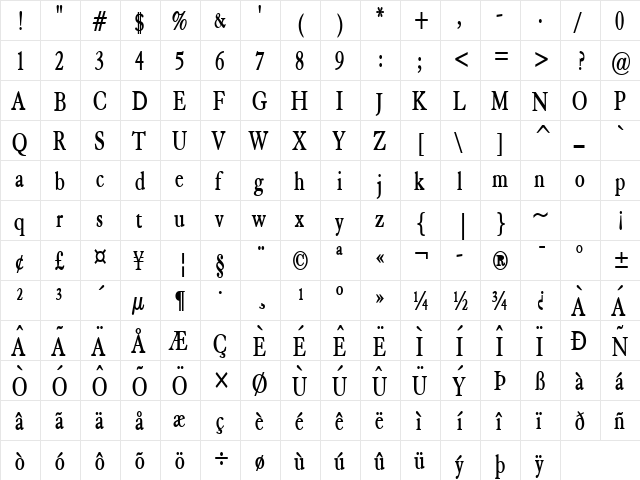
Elephant Condensed Bold
Design Context for Elephant Condensed Typeface
Elephant Condensed is a composed and adaptable typeface that performs quietly and consistently across a wide range of design contexts. The heavy weight commands attention and anchors typographic hierarchies. The condensed width makes it efficient for tight spaces without sacrificing legibility.